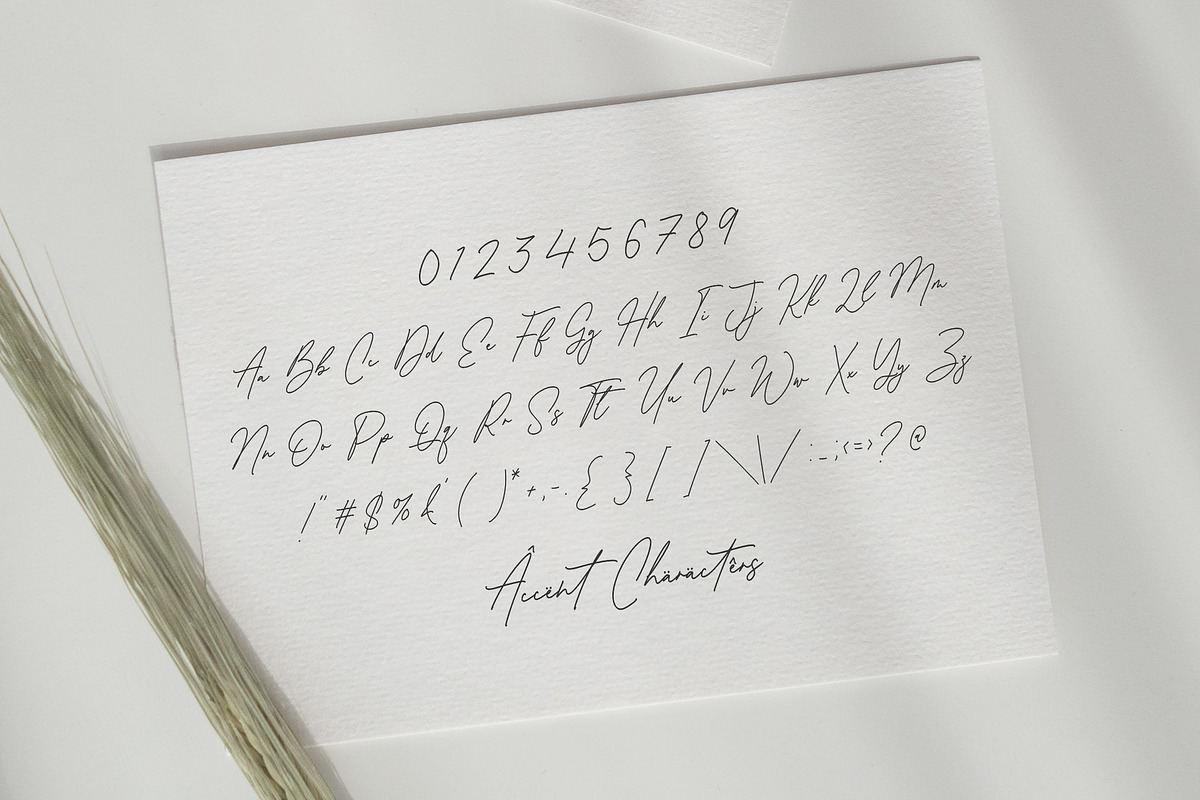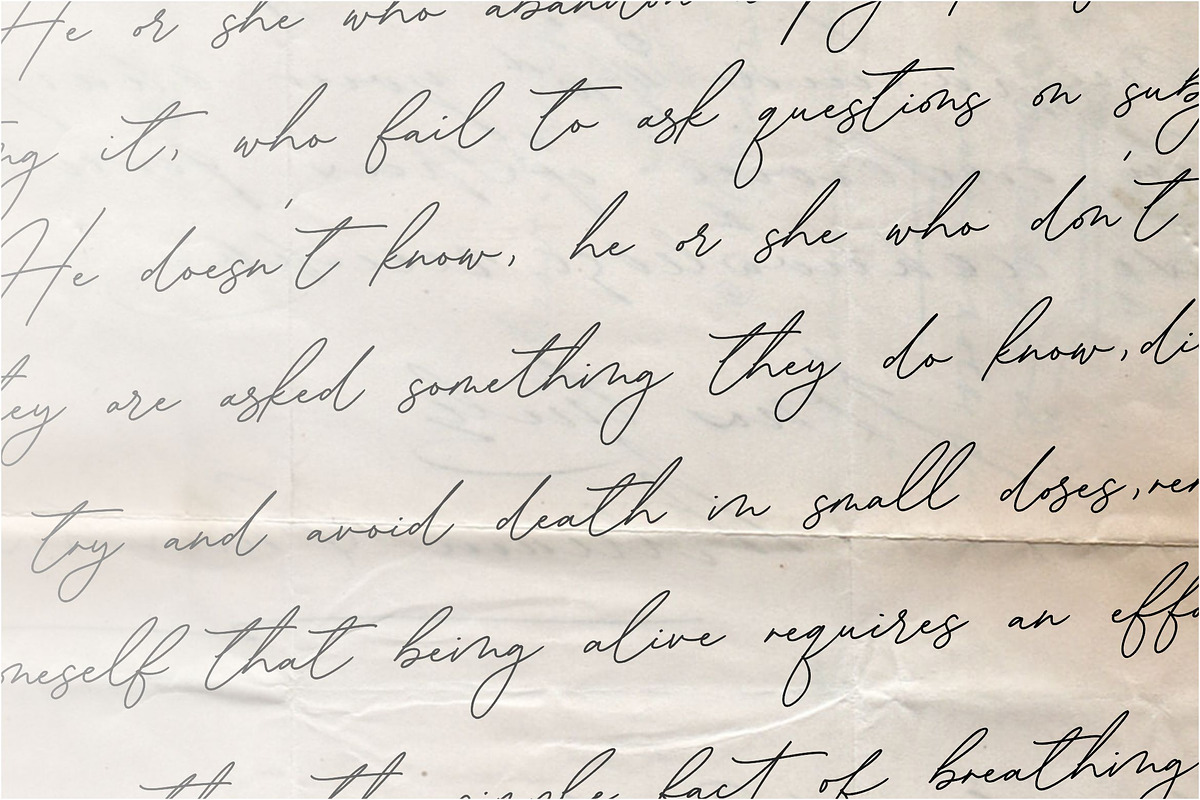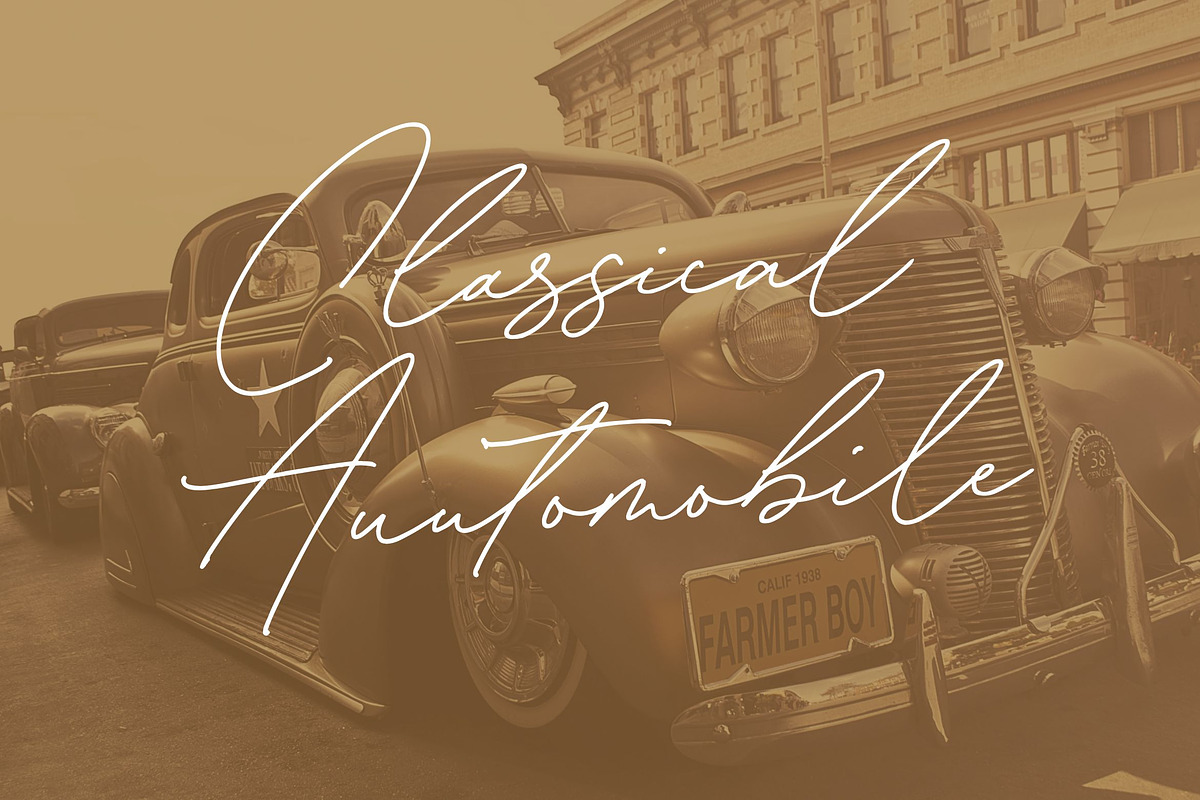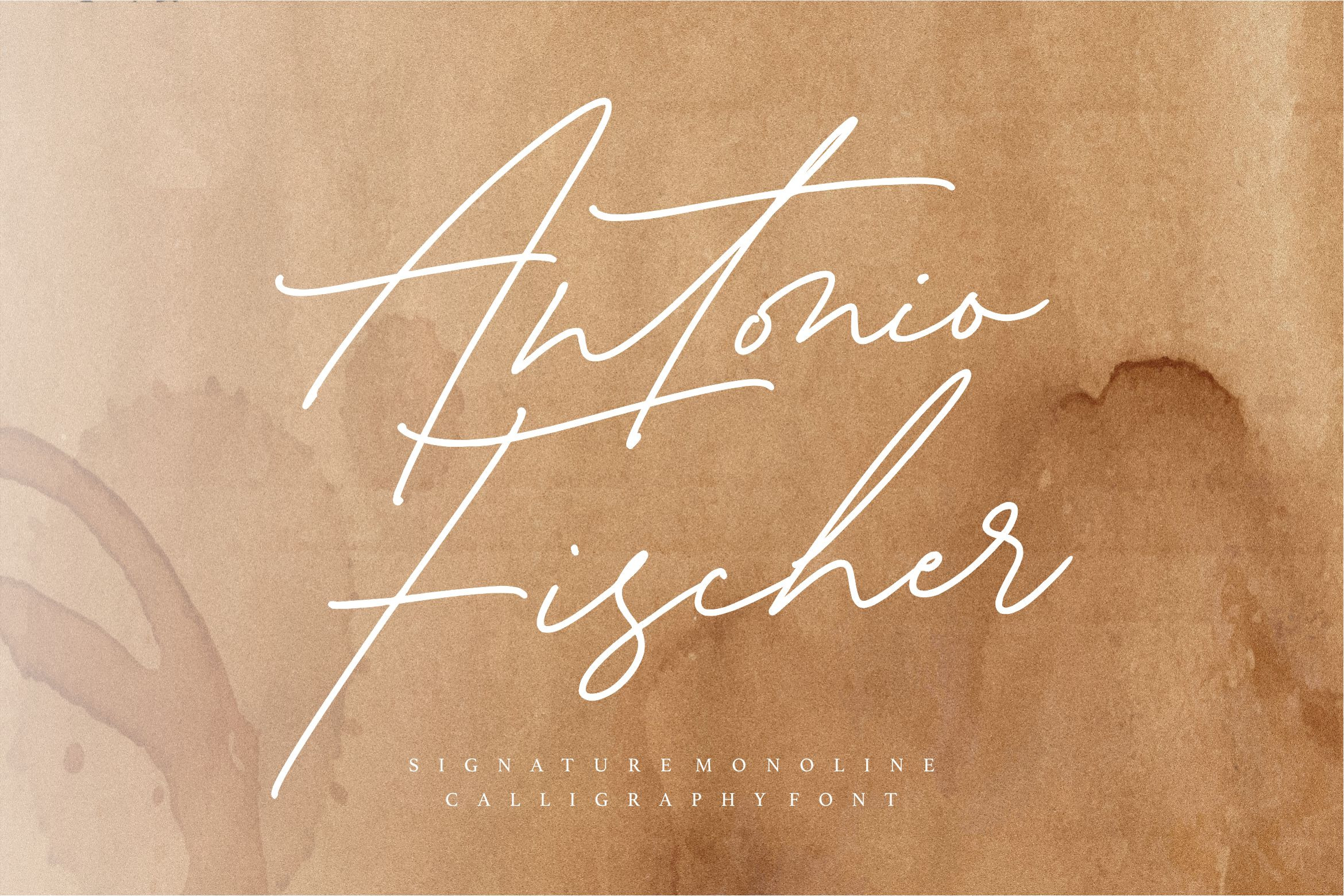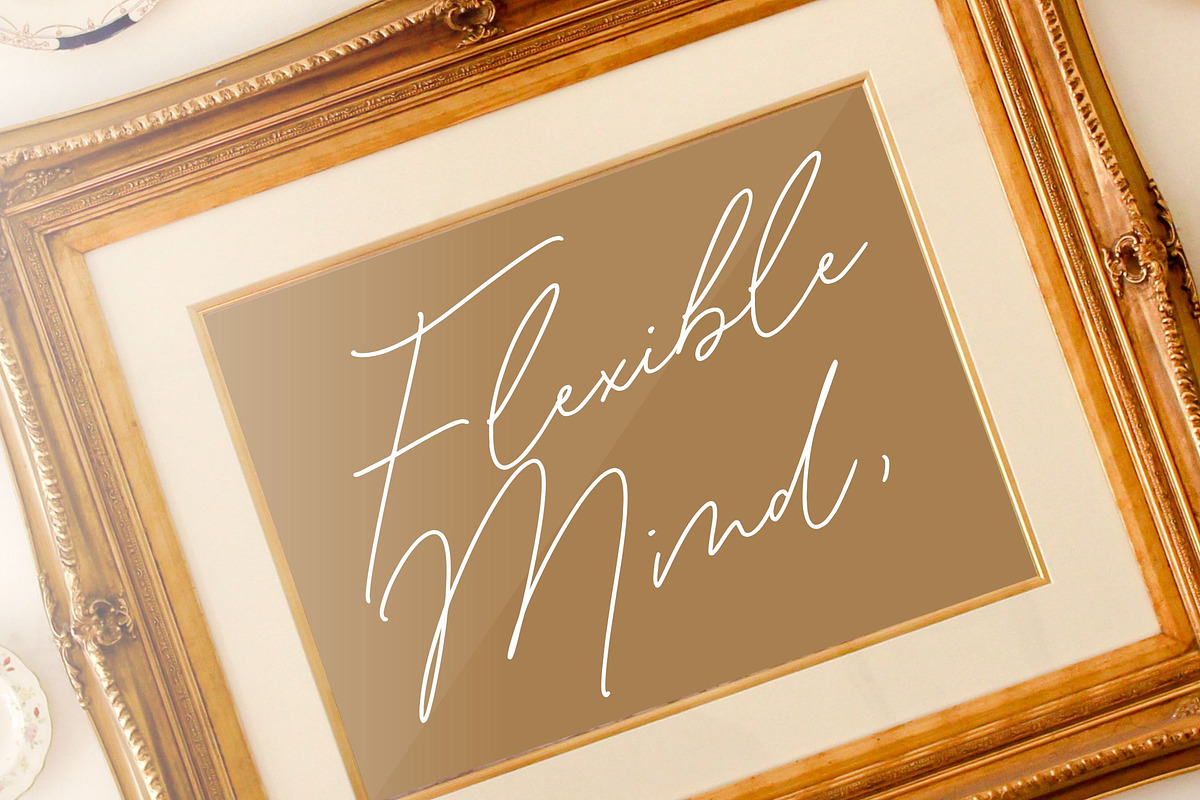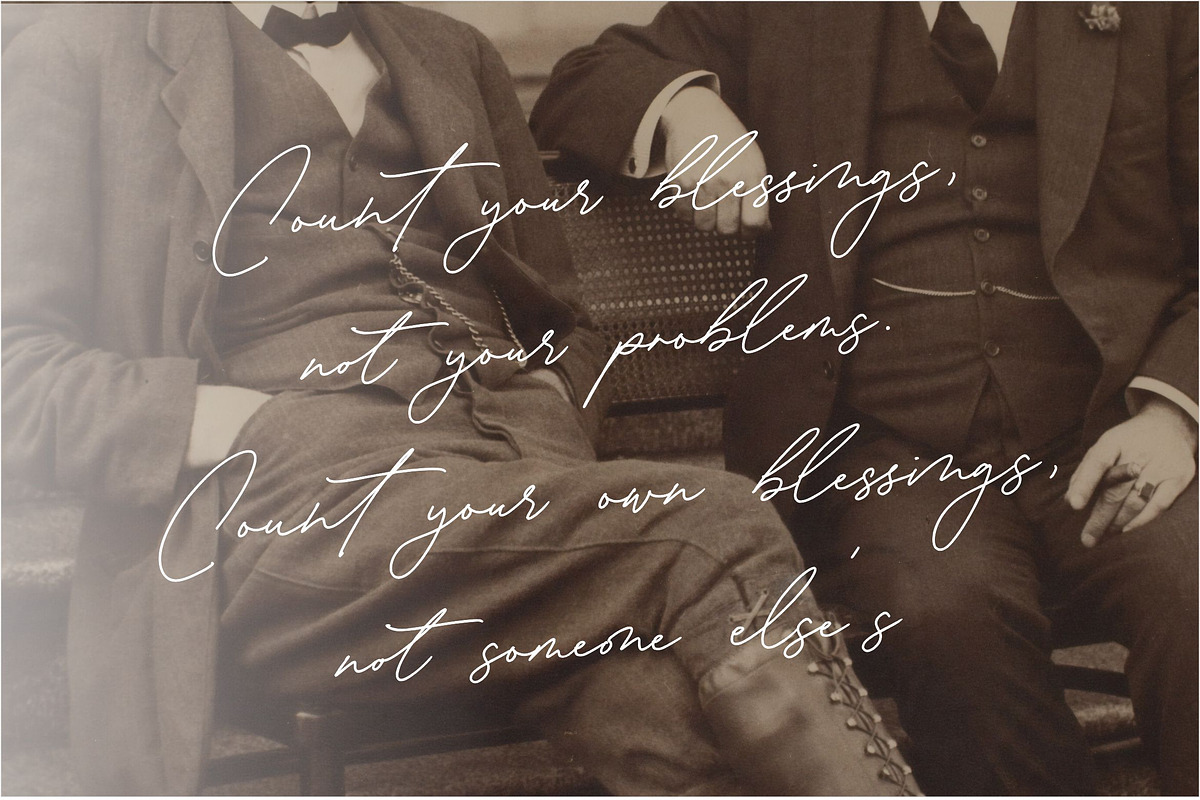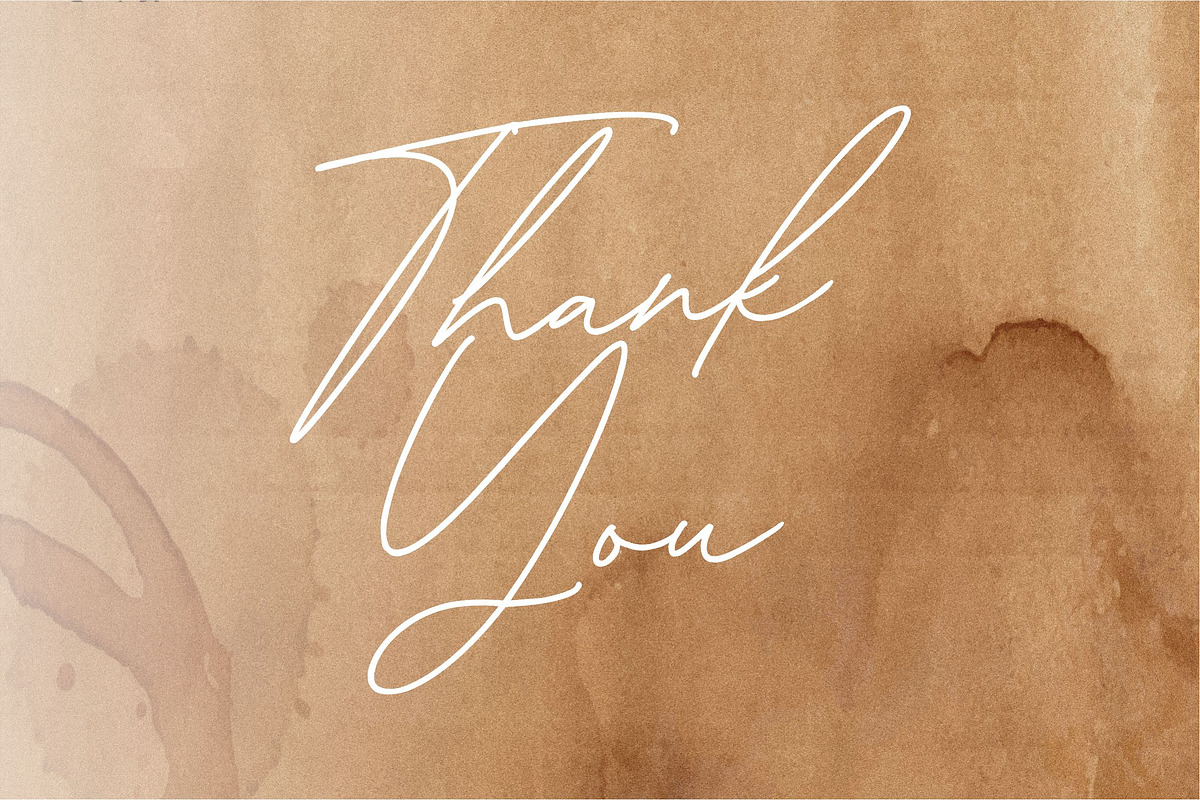
Antonio Fischer - Monoline Font
Proudly Present, Antonio Fischer Font
Antonio Fischer is inspired by classic typography and brings its own unique style to any design project. This fantastic handwritten font is best suited for headlines of all sizes, as well as for blocks of text that have both maximum and minimum variations. Whether it’s for web, print, moving images or anything else – Antonio Fischer will look spectacular.